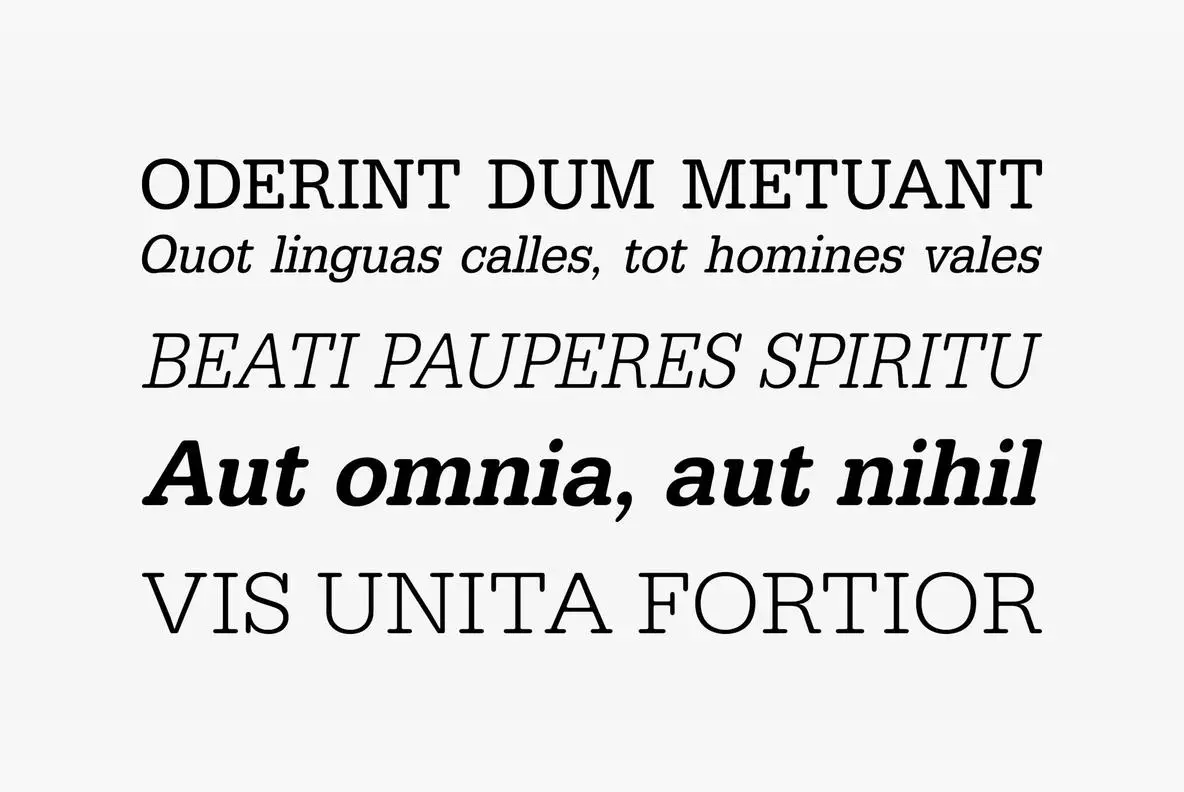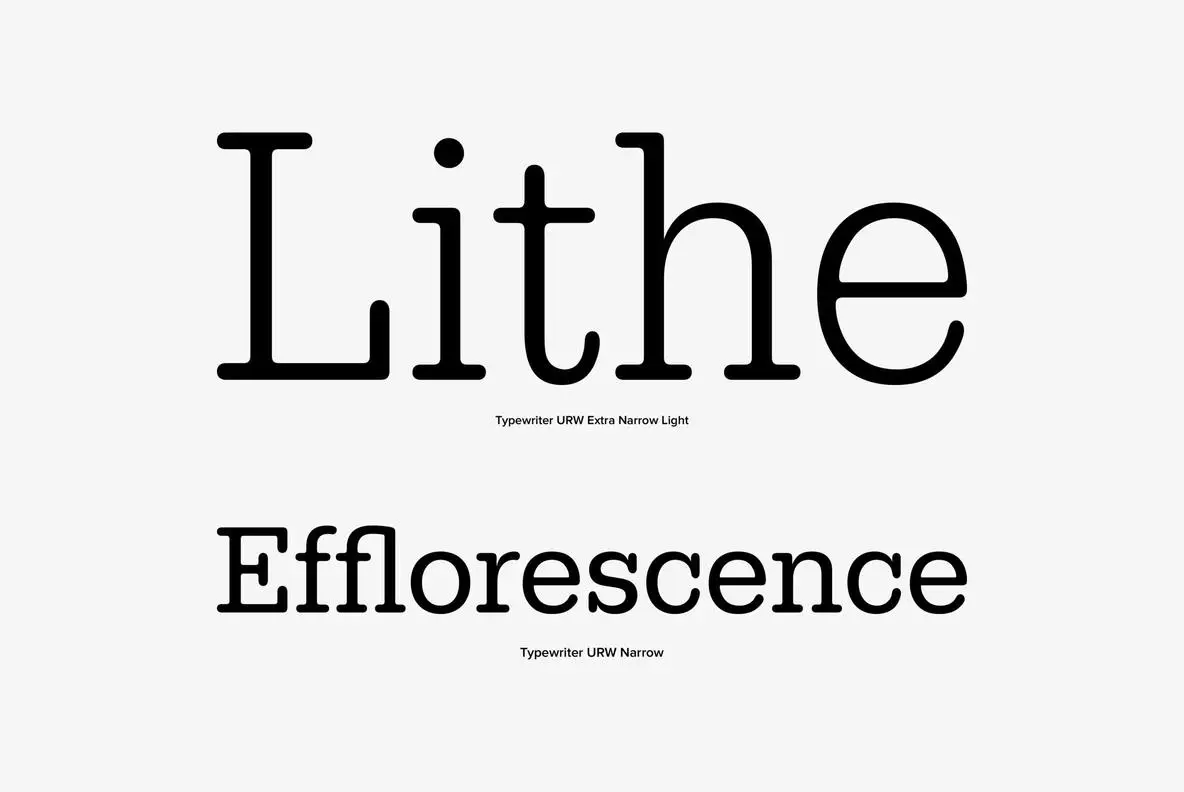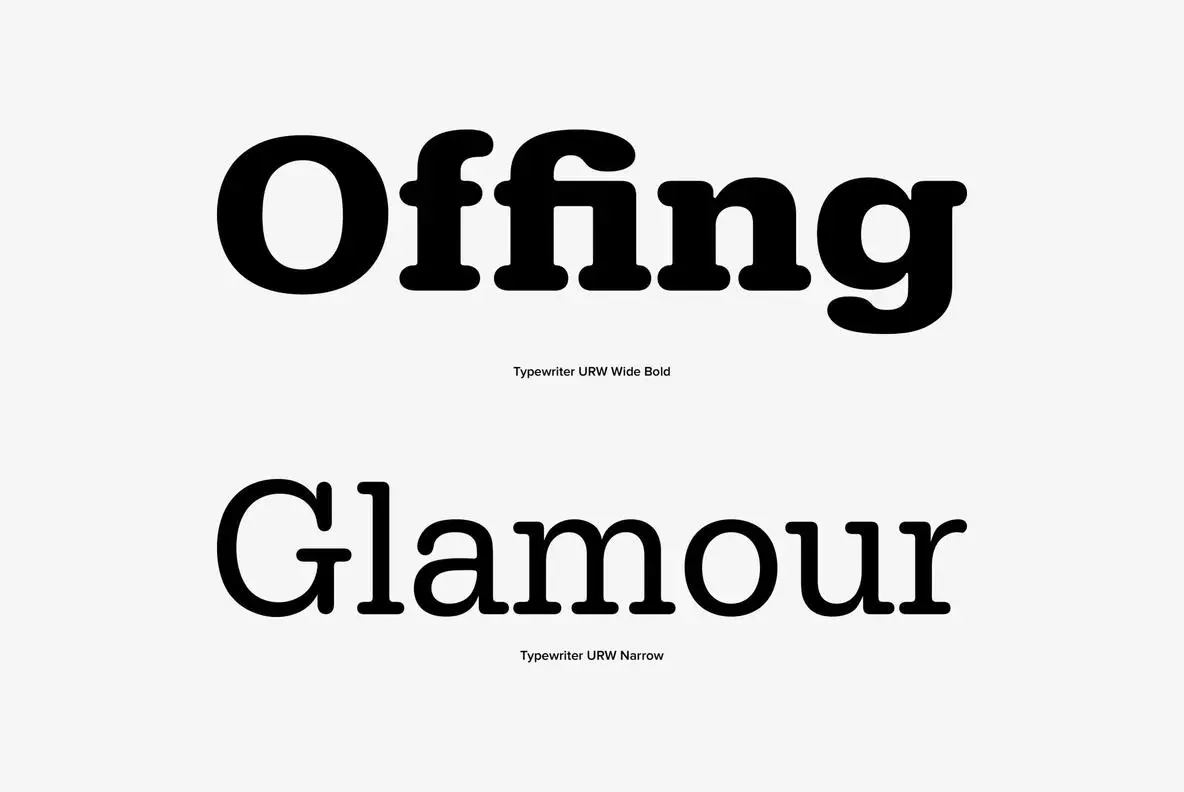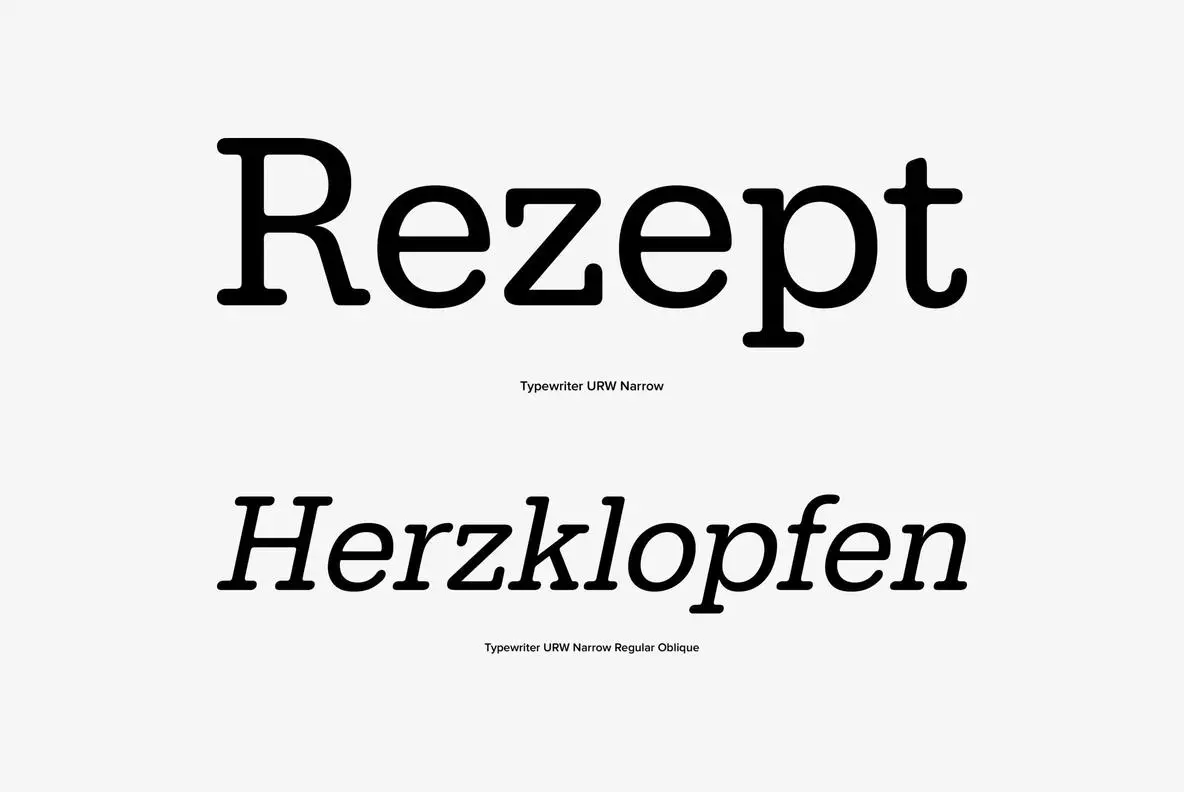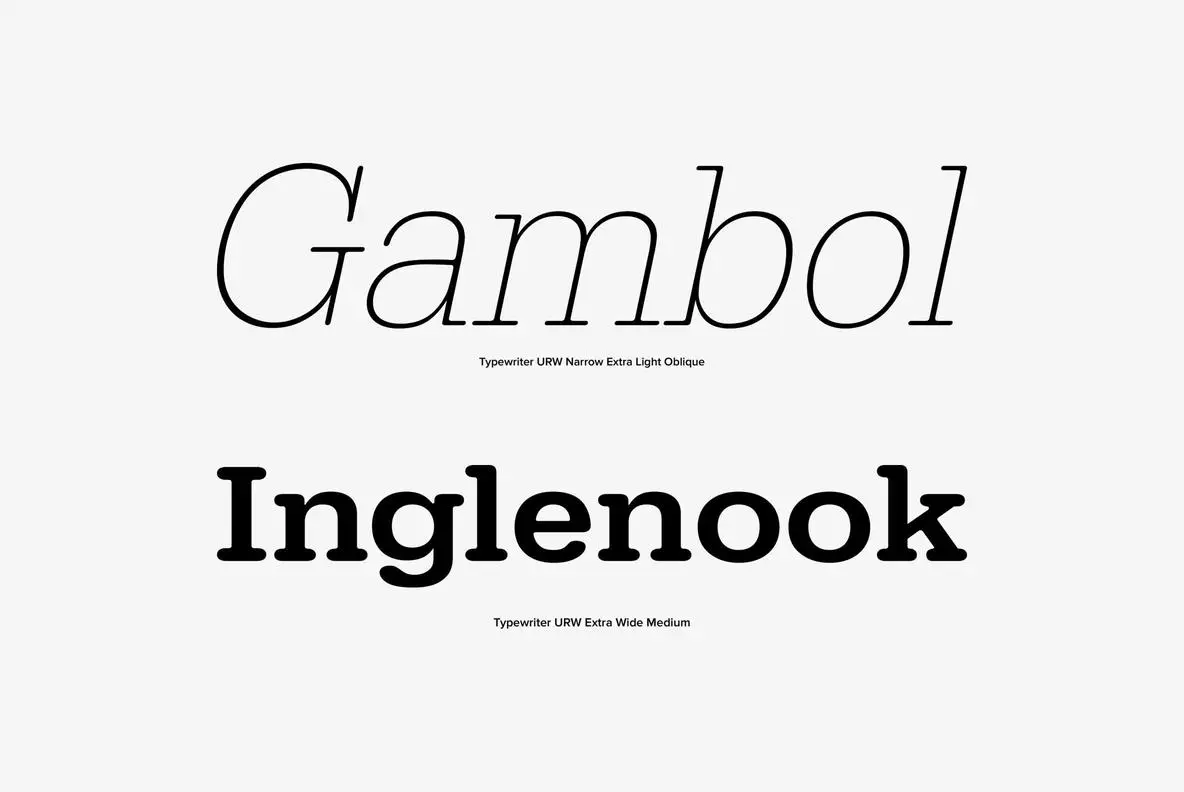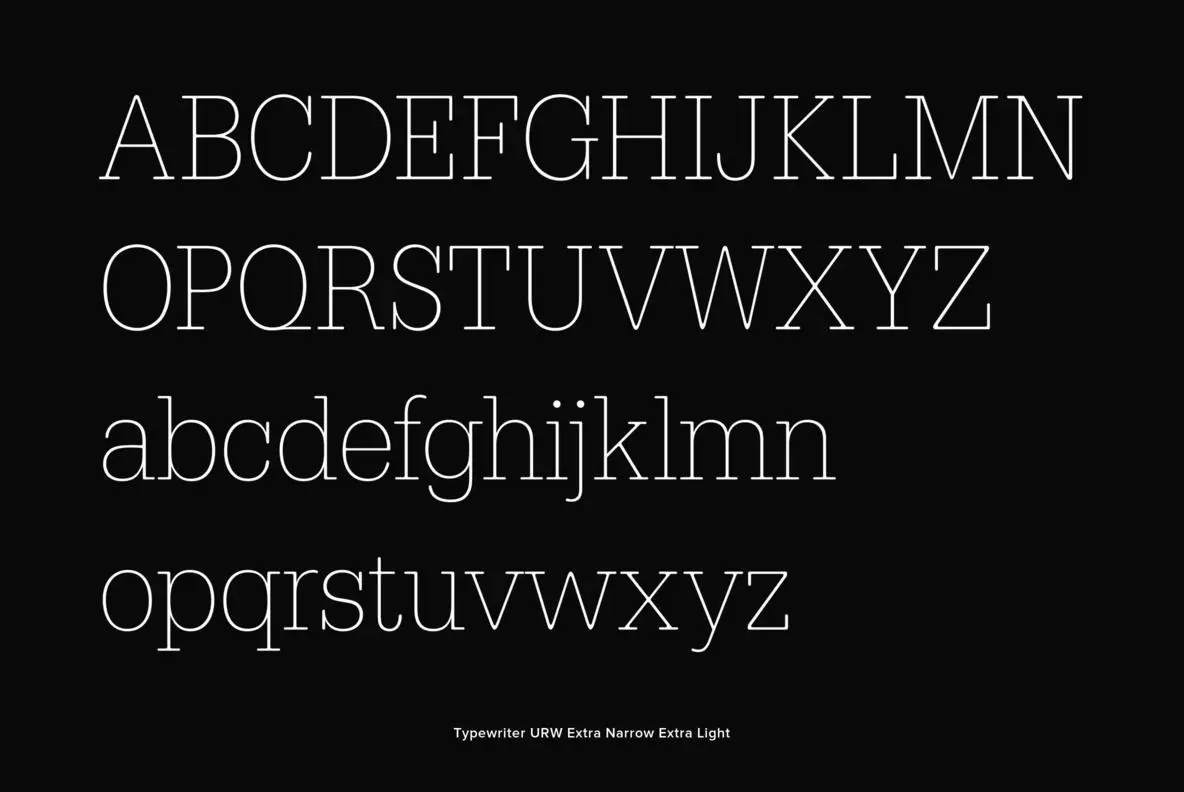
Urw Typewriter Font Free Download . designed by urw studio in 1994, urw typewriter is a classic, full featured and well executed typewriter. Z y m m nimbus sans l urw++ 4 styles. download urwtypewritert font free! onlinewebfonts.com is internet most popular font online download website,offers more than 8,000,000. Typewriter font family was designed by urw design staff and published by urw type foundry. using a catalog of over 990k+ fonts (commercial or free) and our font finder ai, we are able to display over 60 fonts for. Font squirrel relies on advertising in order to keep bringing you. complete family of 48 fonts: preview your custom text.
complete family of 48 fonts: Font squirrel relies on advertising in order to keep bringing you. Z y m m nimbus sans l urw++ 4 styles. download urwtypewritert font free! designed by urw studio in 1994, urw typewriter is a classic, full featured and well executed typewriter. onlinewebfonts.com is internet most popular font online download website,offers more than 8,000,000. Typewriter font family was designed by urw design staff and published by urw type foundry. preview your custom text. using a catalog of over 990k+ fonts (commercial or free) and our font finder ai, we are able to display over 60 fonts for.
Urw Typewriter Font Free Download onlinewebfonts.com is internet most popular font online download website,offers more than 8,000,000. Typewriter font family was designed by urw design staff and published by urw type foundry. Font squirrel relies on advertising in order to keep bringing you. using a catalog of over 990k+ fonts (commercial or free) and our font finder ai, we are able to display over 60 fonts for. Z y m m nimbus sans l urw++ 4 styles. onlinewebfonts.com is internet most popular font online download website,offers more than 8,000,000. designed by urw studio in 1994, urw typewriter is a classic, full featured and well executed typewriter. download urwtypewritert font free! complete family of 48 fonts: preview your custom text.
URWTypewriterTExtLigExtWid Font download free Urw Typewriter Font Free Download designed by urw studio in 1994, urw typewriter is a classic, full featured and well executed typewriter. Typewriter font family was designed by urw design staff and published by urw type foundry. complete family of 48 fonts: Z y m m nimbus sans l urw++ 4 styles. download urwtypewritert font free! Font squirrel relies on advertising in. Urw Typewriter Font Free Download.
URW Typewriter extra light extra wide Fonts Urw Typewriter Font Free Download Typewriter font family was designed by urw design staff and published by urw type foundry. complete family of 48 fonts: download urwtypewritert font free! preview your custom text. Font squirrel relies on advertising in order to keep bringing you. designed by urw studio in 1994, urw typewriter is a classic, full featured and well executed typewriter.. Urw Typewriter Font Free Download.
URW Typewriter bold Fonts Urw Typewriter Font Free Download complete family of 48 fonts: preview your custom text. onlinewebfonts.com is internet most popular font online download website,offers more than 8,000,000. using a catalog of over 990k+ fonts (commercial or free) and our font finder ai, we are able to display over 60 fonts for. designed by urw studio in 1994, urw typewriter is a. Urw Typewriter Font Free Download.
T.26 Digital Type Foundry Fonts Typewriter URW Urw Typewriter Font Free Download download urwtypewritert font free! designed by urw studio in 1994, urw typewriter is a classic, full featured and well executed typewriter. complete family of 48 fonts: preview your custom text. Z y m m nimbus sans l urw++ 4 styles. Font squirrel relies on advertising in order to keep bringing you. Typewriter font family was designed. Urw Typewriter Font Free Download.
Bodoni URW Black Regular Download for free at Free Fonts Urw Typewriter Font Free Download onlinewebfonts.com is internet most popular font online download website,offers more than 8,000,000. Z y m m nimbus sans l urw++ 4 styles. complete family of 48 fonts: designed by urw studio in 1994, urw typewriter is a classic, full featured and well executed typewriter. Font squirrel relies on advertising in order to keep bringing you. Typewriter font. Urw Typewriter Font Free Download.
URW Typewriter Font YouWorkForThem Urw Typewriter Font Free Download onlinewebfonts.com is internet most popular font online download website,offers more than 8,000,000. complete family of 48 fonts: Font squirrel relies on advertising in order to keep bringing you. download urwtypewritert font free! preview your custom text. Z y m m nimbus sans l urw++ 4 styles. using a catalog of over 990k+ fonts (commercial or. Urw Typewriter Font Free Download.